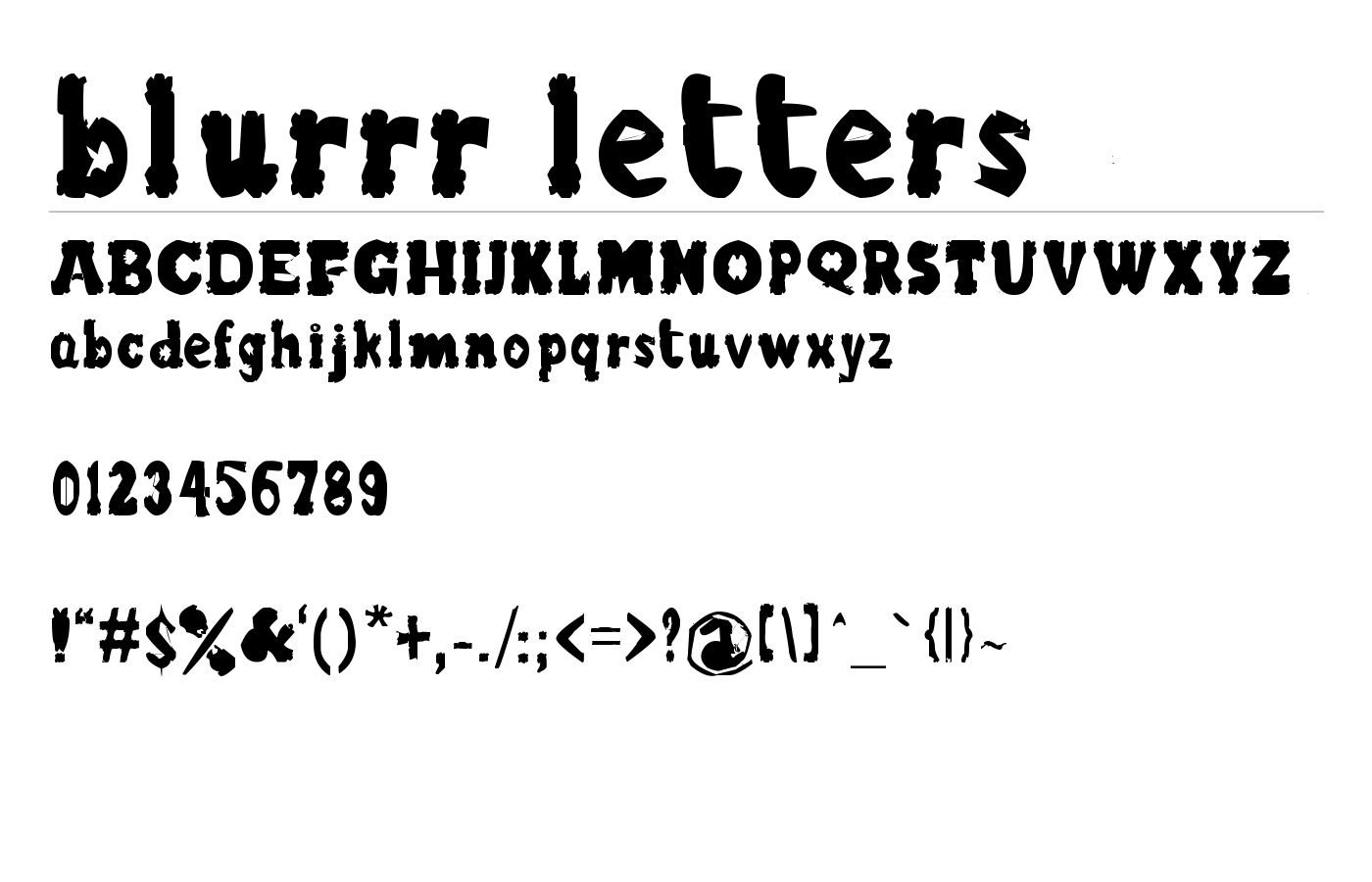
Blurrr Letters is a bold, playful serif font with uneven, textured edges that give it a hand-crafted, slightly rough appearance. Its quirky letterforms and irregular details make it perfect for creative projects that need a fun, distinctive, and eye-catching style. This font works well for posters, logos, and headlines where a unique, attention-grabbing personality is desired.
blurrr letters Font
About blurrr letters Font